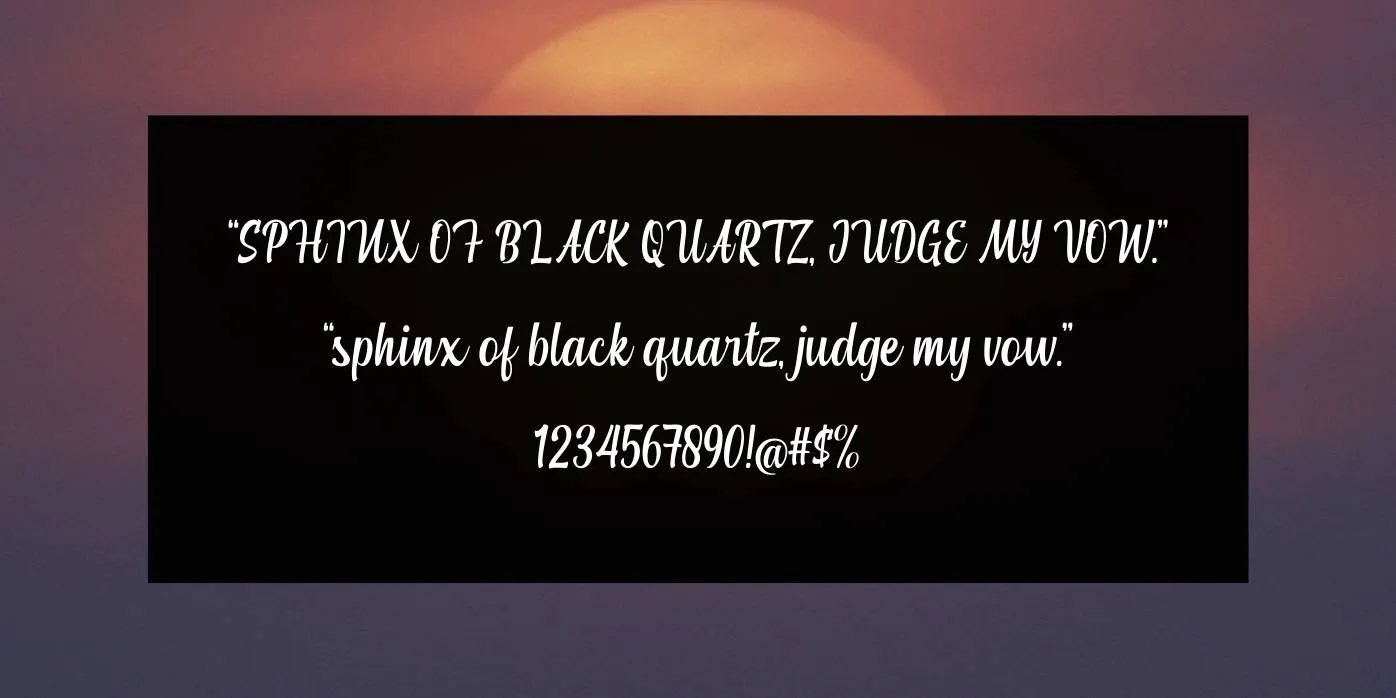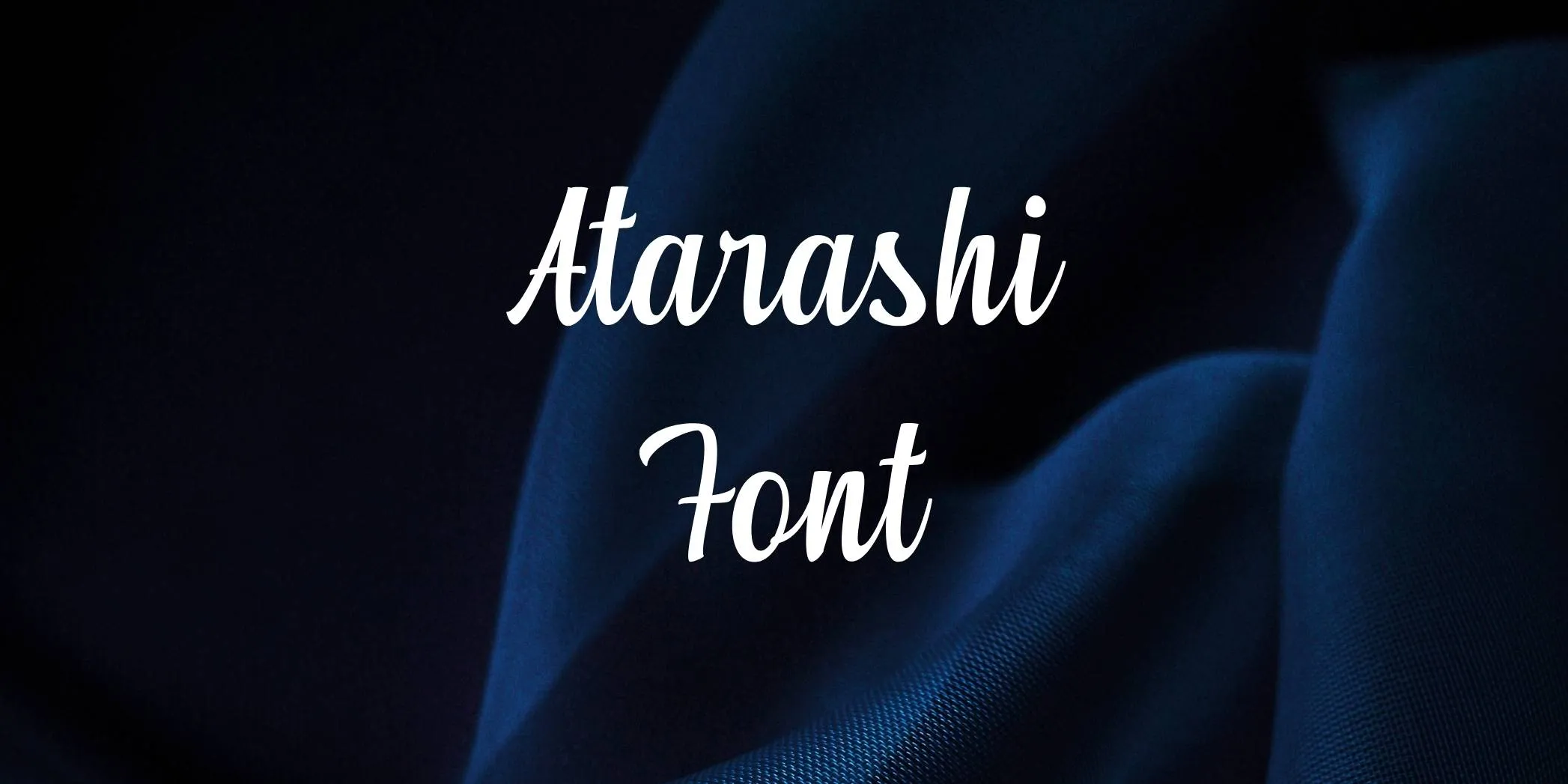
Atarashi Font
Atarashi font is a script typeface that was created in the early 20th century. The font was designed by Akira Kobayashi and is currently used by many Japanese companies. The font is also used in many public places such as train stations and airports. Kobayashi was a Japanese typeface designer who wanted to create a sans-serif typeface that had a modern look and feel.